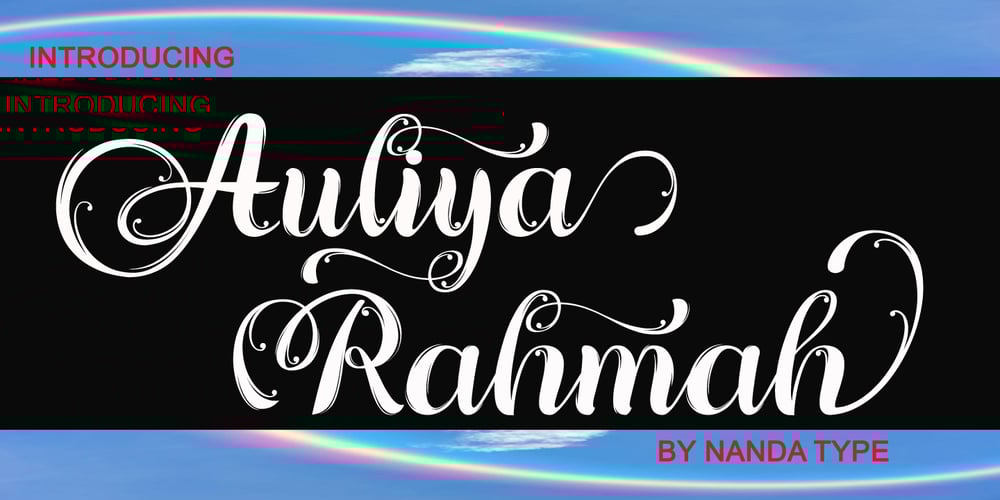
Auliya Rahmah
Auliya Rahmah font
Auliya Rahmah Font Family was designed by Nanda Type and published by Nandatype Studio. Auliya Rahmah contains 1 styles and family package options. Auliya Rahmah is a bold serif font, and is trendy, contemporary in style. This font is PUA coded which means you can access all the glyphs and swashes easily!Fall in love with her incredibly versatile style and use it to create spectacular designs!